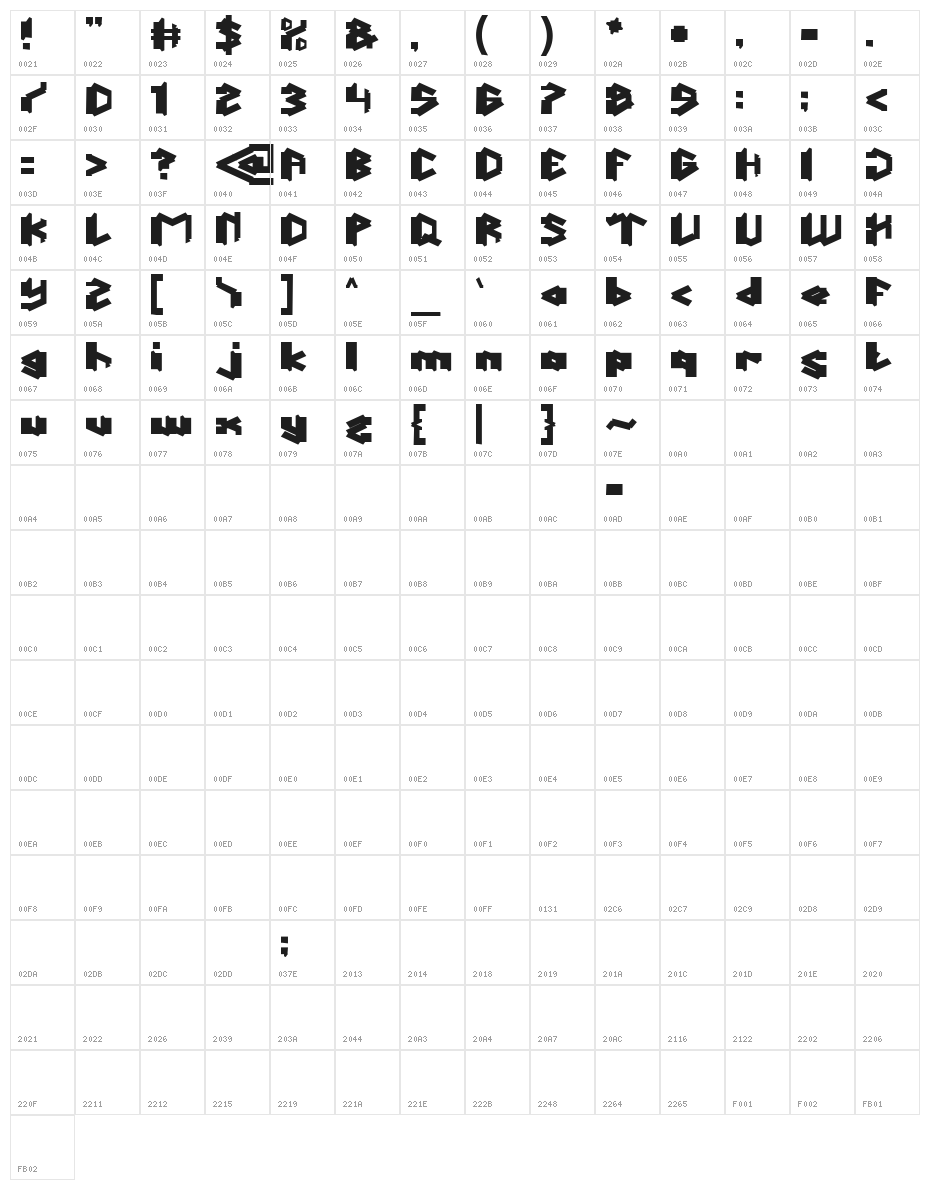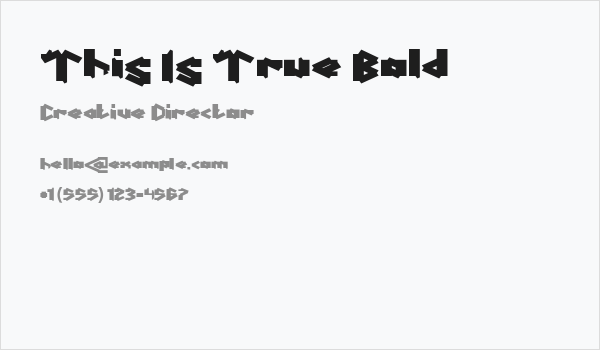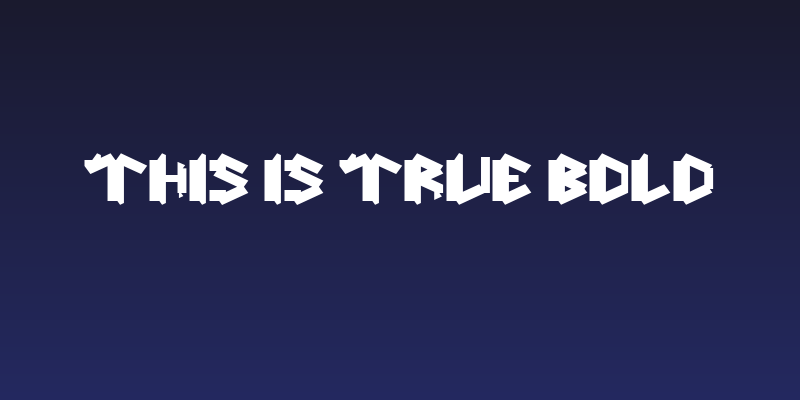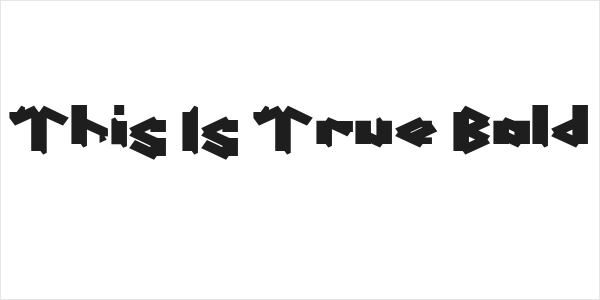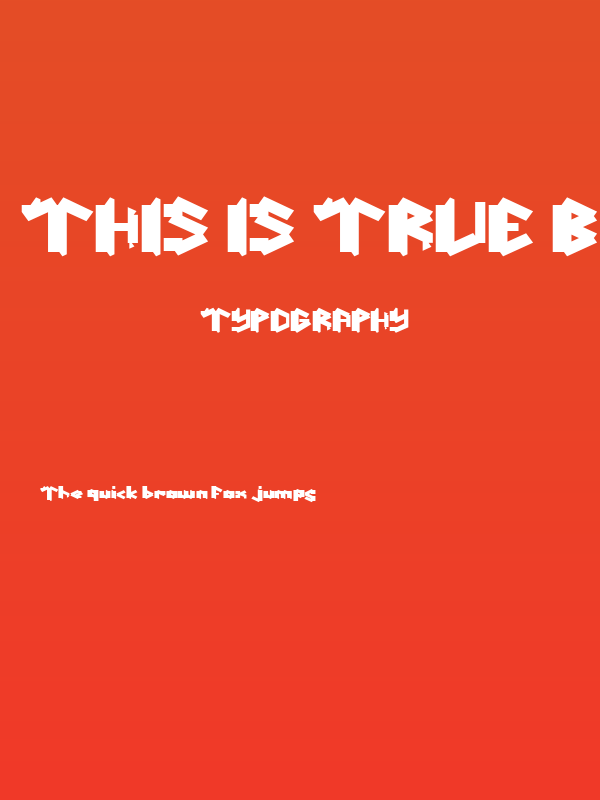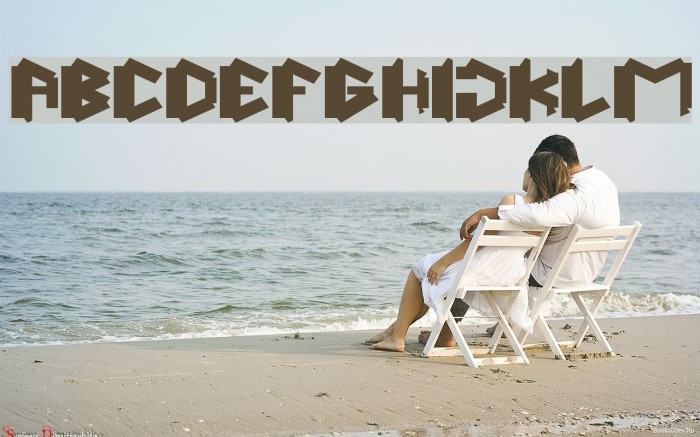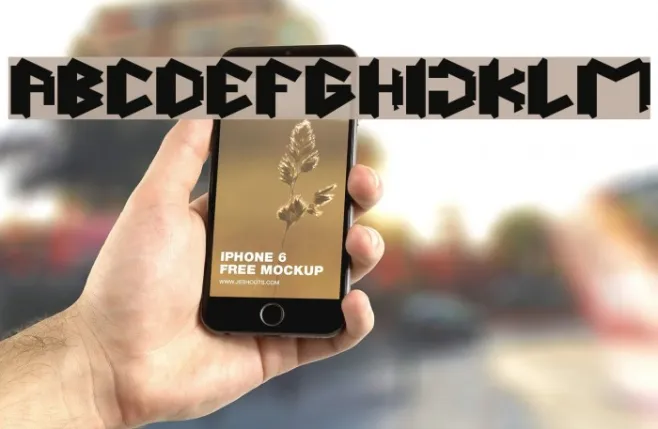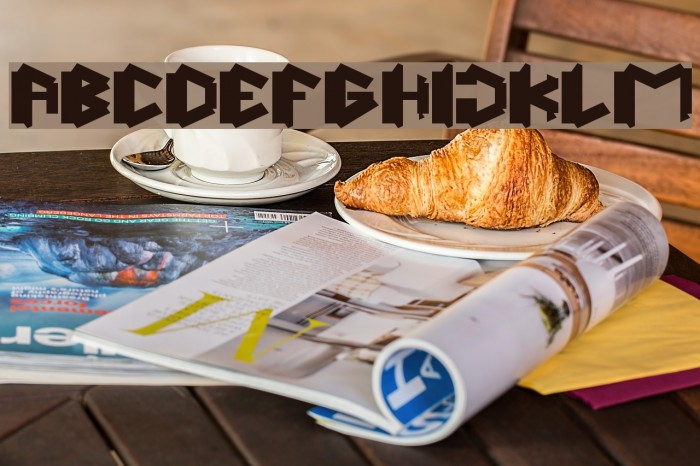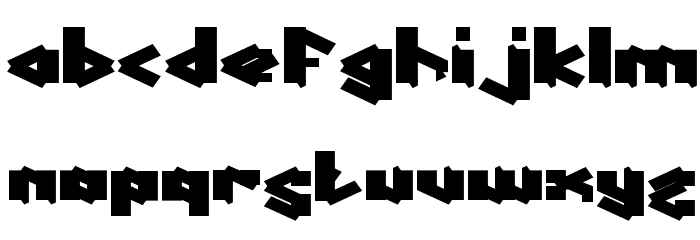
This Is True Bold Font
This Is True Bold Description
This font is a bold, angular display typeface with a distinctly modern and edgy aesthetic. The characters are constructed with sharp, geometric shapes, giving them a strong and impactful presence. The uppercase and lowercase letters maintain a consistent style, with exaggerated angles and a blocky structure. The numbers and special characters follow the same design principles, ensuring a cohesive look across all glyphs. This font's unique style makes it suitable for projects that require a bold statement or a futuristic vibe.